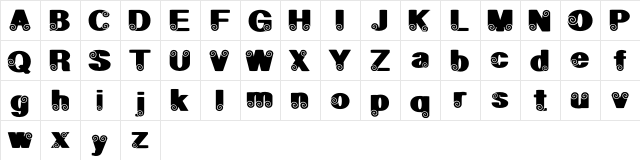
GeodecSpyral Regular
| Foundry | Intellecta Design, Paulo W |
Design Context for GeodecSpyral Typeface
GeodecSpyral is a composed and adaptable typeface that performs quietly and consistently across a wide range of design contexts.